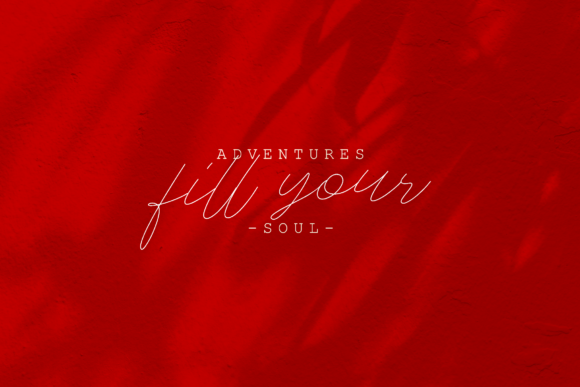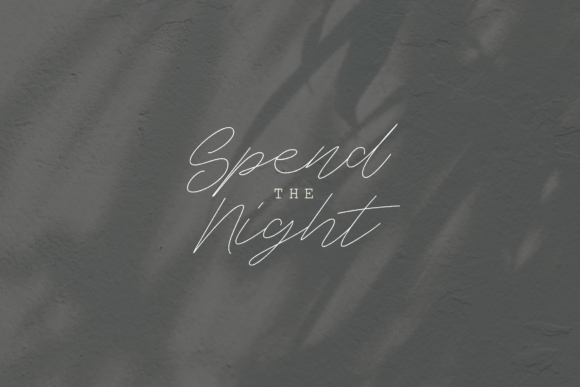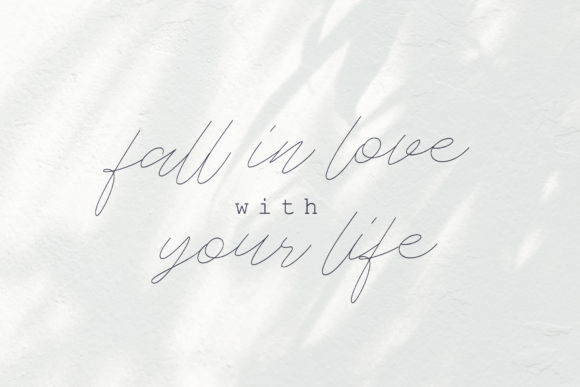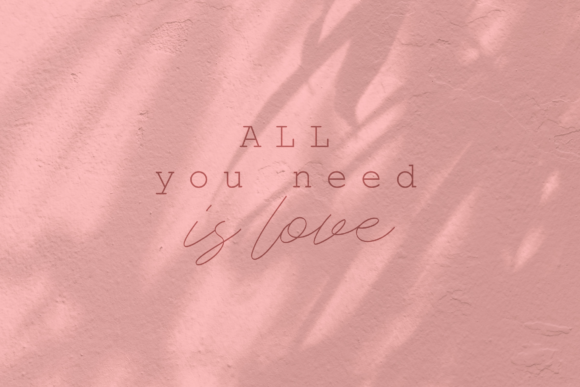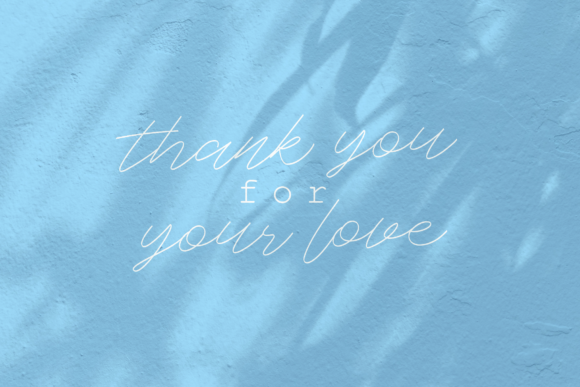
Romatrix Font
About Romatrix Font
Romatrix is a romantic and fun handwritten font with a cute feel. It will turn any design idea into an authentic piece of art.